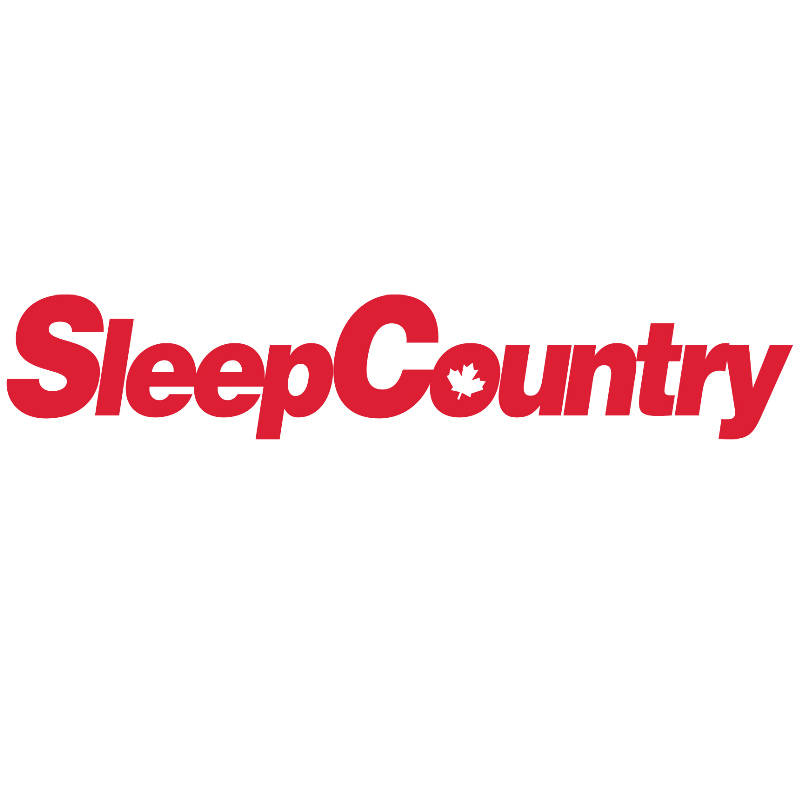
Sleep Country Font
CountrySleep Country is a Canadian mattress retailer founded in 1994 by Christine Magee and Stephen Gunn. The chain operates over 280 stores across Canada and offers a wide range of mattresses, bedding, and related accessories.
Sleep Country's logo font is the neo-grotesque sans-serif typeface known as Helvetica Black Oblique, which was designed in 1957. You can find more details about it here.